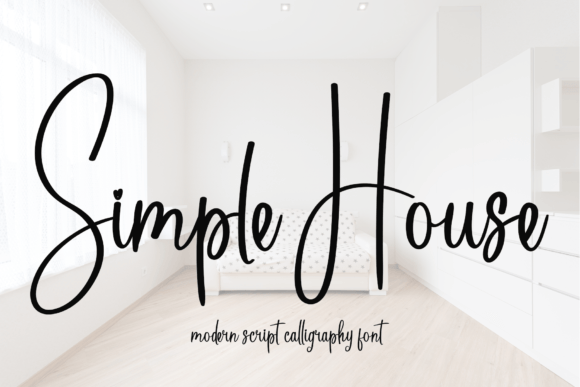
Introducing Simple House Font, the newest addition to your font collection! Created by the talented Balak bendol, this script font is guaranteed to take your designs to the next level.
The beauty of Simple House lies in its delicate and whimsical characters, which gracefully dance along the baseline. This unique feature adds a touch of luxury to any project you create, from branding materials to social media graphics.
But don't let the word "simple" fool you! Simple House is a font full of character and personality, making it perfect for adding a personal touch to any project. Whether you're designing wedding invitations, creating blog graphics, or crafting product packaging, this font is the perfect choice for anyone looking to stand out from the crowd.
One of the best things about Simple House is its versatility. It can be used for both formal and informal designs, making it the perfect font for any occasion. And with its natural, handwritten feel, it's sure to bring warmth and personality to your designs.